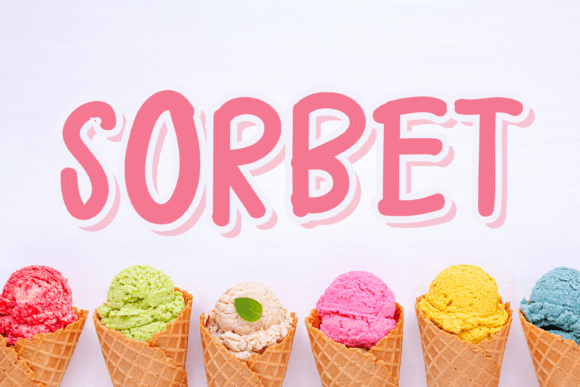
Introducing Sorbet Font - A Taste of Delight for Your Visual Creations!
Step into the world of Sorbet Font, a captivating display font that adds a touch of sweetness to your digital designs. This font is the perfect choice for those seeking a font that is as unique as it is versatile. Sorbet Font is a creation of the talented PJ Fonttein, who poured their heart and soul into crafting this masterpiece.
With Sorbet Font, simplicity meets elegance, resulting in a font that is both easy on the eyes and visually striking. Its handwritten charm exudes a sense of warmth and playfulness, making it ideal for a wide range of projects, from logos and branding to SVG files and farmhouse signs.
Teachers, rejoice! Sorbet Font is your secret weapon for creating engaging and visually appealing lesson plans and presentations. Its playful vibe will capture the attention of your students, making learning an enjoyable experience. And for those who love to express themselves through greeting cards, Sorbet Font is the perfect choice to add a personal touch to your messages.
Unleash your creativity with Sorbet Font! Let your imagination run wild as you design posters, social media posts, and planner prints that are sure to turn heads. The possibilities are endless with this font, so let your creativity soar!